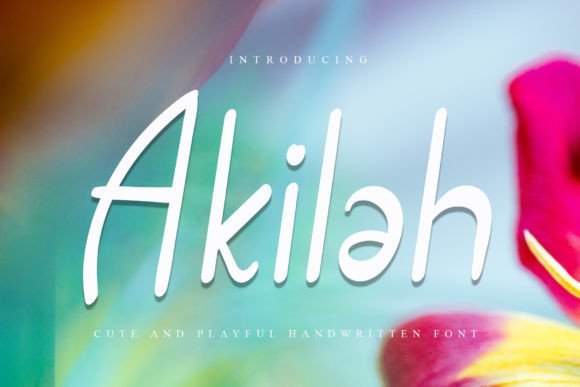
A Touch of Whimsy: The Akilah Font
Have you ever been browsing through a beautiful wedding invitation or a handmade card and thought, “This is exactly what I need to make my design stand out”? That’s the magic of a well-chosen font, and for designers, finding the perfect one can be a game-changer. I still remember the moment I stumbled upon the Akilah Font, and I knew I had to learn more about it.
The Akilah Font is a unique and elegant script font that adds a touch of personality to any design. Whether you’re creating a wedding invitation, a billboard, or a logo, this font is sure to make your design shine. Its versatility and charm make it a valuable asset for designers, allowing them to bring their creative vision to life.
Akilah Font Key Features
- Font Family: Akilah is a unique, modern script font designed for creative and elegant typography.
- Character Set: The font includes a wide range of characters, including uppercase and lowercase letters, numerals, punctuation marks, and special characters.
- Unique Characteristics: The font features a flowing, handwritten style with subtle connections between letters, giving it a distinctive and elegant appearance.
Akilah Font Review
Overall, I found the Akilah Font to be a beautiful, elegant script font. ✨ The fluidity of the strokes and the organic feel to the letterforms make it perfect for use in creative, artistic projects. ✨ The font’s high x-height and open counters give it a friendly, approachable feel that works well in body text and display settings alike.
The Akilah Font is particularly well-suited for projects that require a touch of sophistication and whimsy. ✨ It’s a great choice for wedding invitations, greeting cards, and other special occasion materials. ✨ However, it may not be the best choice for projects that require a bold, attention-grabbing font.
- ⚠️ The Akilah Font may be difficult to read at small font sizes due to its intricate letterforms and connections.
- ⚠️ The font’s script nature may make it challenging to use in situations where precise alignment and spacing are crucial.
In conclusion, the Akilah Font is a beautiful, versatile script font that is well-suited for a wide range of creative projects. While it may have some limitations, its unique character and elegance make it a valuable addition to any designer’s toolkit.
Tips for Getting the Most Out of the Akilah Font
Use the Akilah font for titles, headings, and other display text to add a touch of elegance and sophistication to your designs.
Experiment with different font sizes and colors to create visual interest and hierarchy in your designs.
Combine the Akilah font with other fonts to create a unique and eye-catching typographic style.
The Akilah font is ideal for:
Corporate branding and marketing materials
Photography and fine art prints
Any design project where